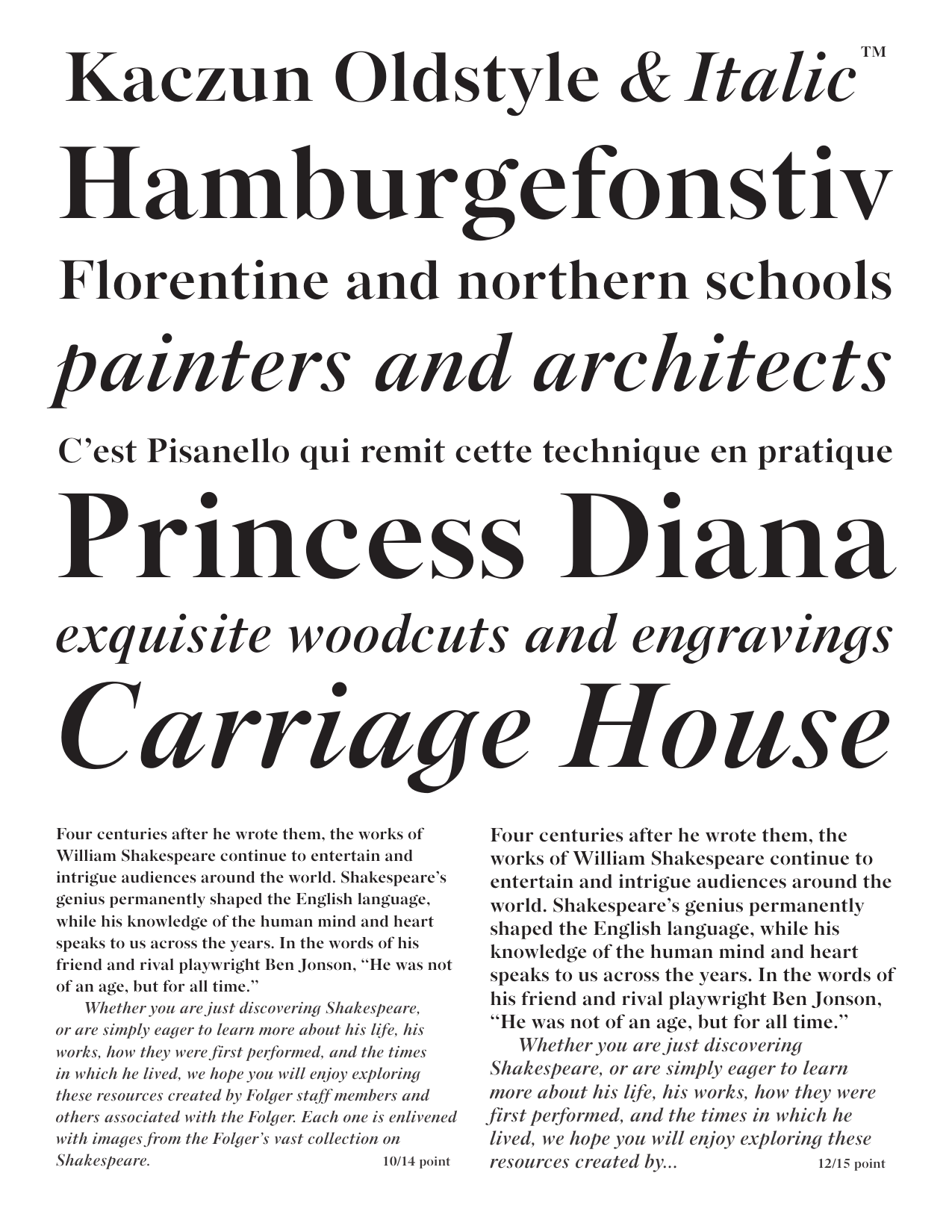
Kaczun Oldstyle
Kaczun Oldstyle is a revival based on the classic typefaces of the early 1900’s. It is a true display font with refined hairlines and sophisticated serifs.
Kaczun Oldstyle and the corresponding italic are a veritable workhorse that flows comfortably, with elegance and sensibility that complements the sturdiness of this bold font.
Over the years, many have gushed loving words about this typeface in metal, and now it comes to digital life in a wonderful way and with expert style.